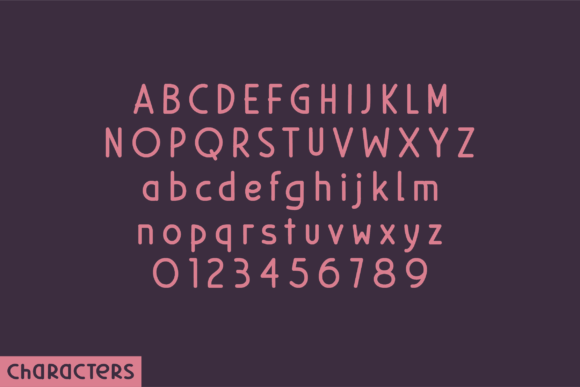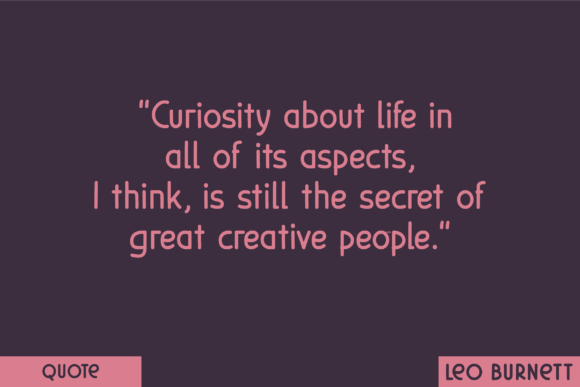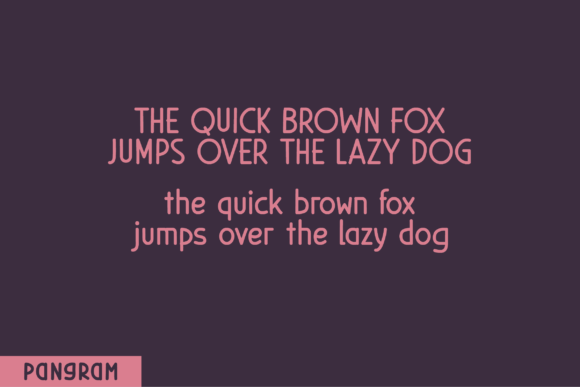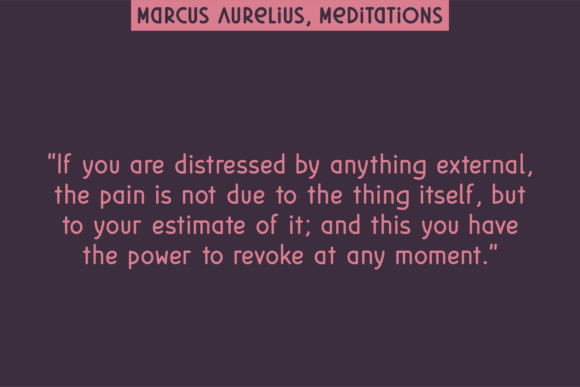
The Sweet Spot: Discovering the Charm of Buttercream Font
I’ll never forget the moment I stumbled upon the Buttercream font while working on a project for a client who specialized in artisanal baked goods. I was on a mission to find the perfect font that would capture the warmth and coziness of their brand. After hours of scouring through font libraries, I finally stumbled upon Buttercream – and it was love at first sight! ✨
An Honest Review: What I Love (and What to Watch Out For)
- ✨ Uniquely Natural Look: Buttercream’s sans serif design is created without altering a single node in each character’s indentation, giving it a refreshingly natural look.
- ✅ Versatility: This font is perfect for a wide range of design projects, from quotes and notes to tees and product designs.
- 💡 Ease of Use: Buttercream is incredibly easy to read, making it an excellent choice for body text or captions.
While Buttercream is an amazing font, there are a few things to keep in mind: ⚠️
- 🤔 Limited Formality: Due to its natural, casual look, Buttercream might not be the best fit for very formal or corporate designs.
- ⚠️ Glyph Limitations: As with any font, some glyphs or special characters might not be available or might require additional setup.
The Story Behind Buttercream: Designer Inspiration
Buttercream was designed with the intention of creating a font that felt natural, yet modern. The designer aimed to preserve the organic feel of handwriting while still making it suitable for digital and print applications. The result is a font that feels both approachable and stylish.
| Font Name | Buttercream Font |
| Author | Hanna Bie |
Q: What makes Buttercream unique?
A: Buttercream’s unique selling point is its natural sans serif design, created without altering a single node in each character’s indentation.
Q: Is Buttercream suitable for body text?
A: Absolutely! Buttercream is easy to read and can be used for body text in various design projects.
Q: Can I use Buttercream with OpenType features?
A: Yes, Buttercream supports OpenType features like glyphs and stylistic alternates. Experiment with these features to add more creativity to your designs.